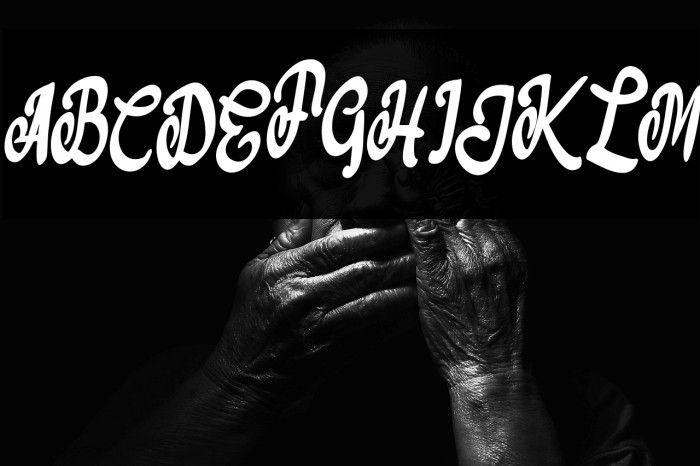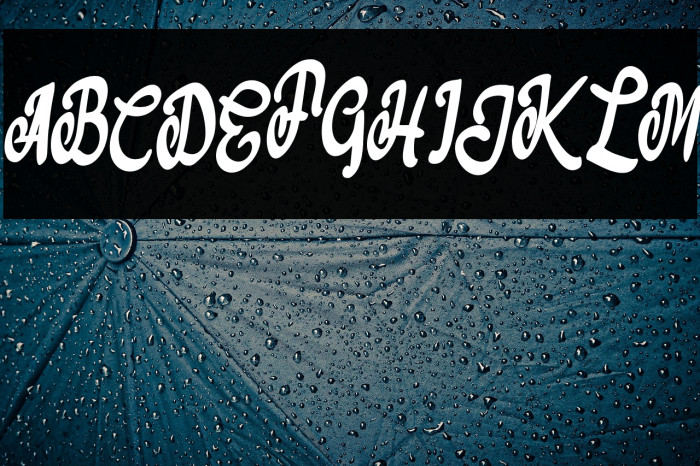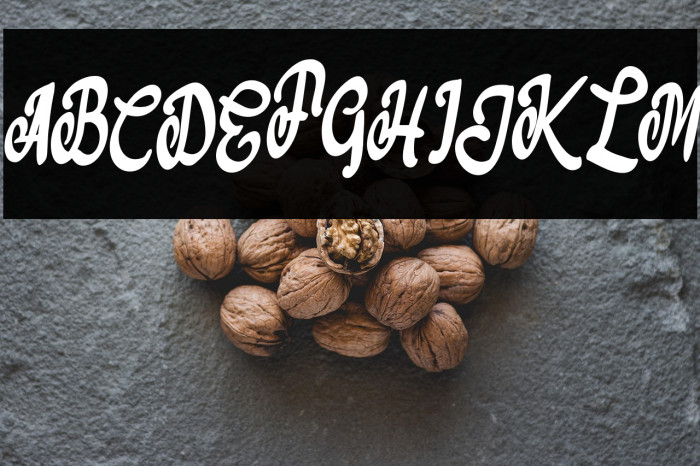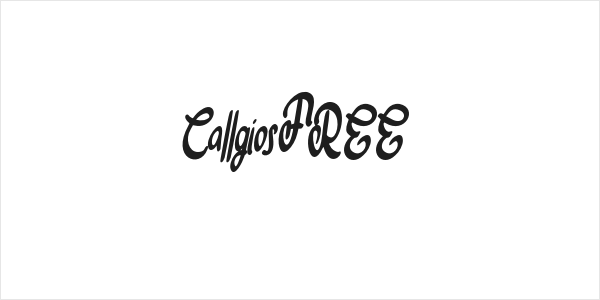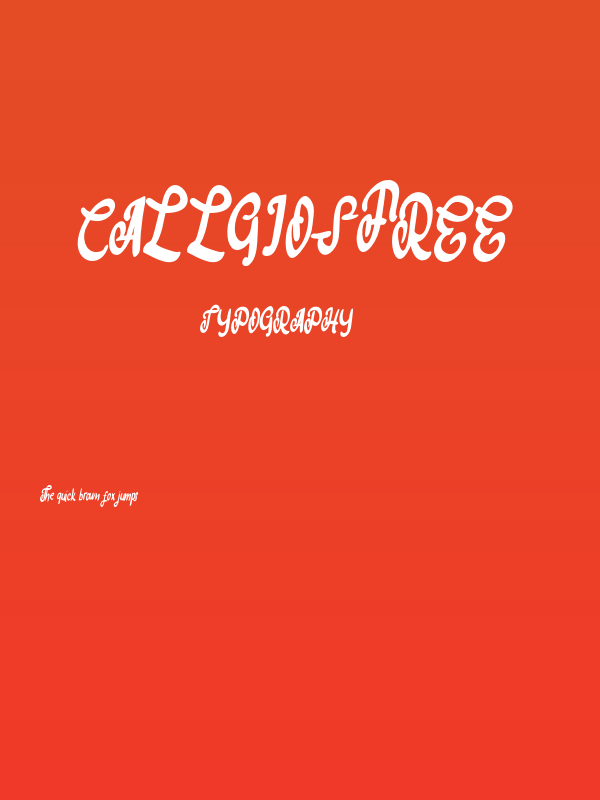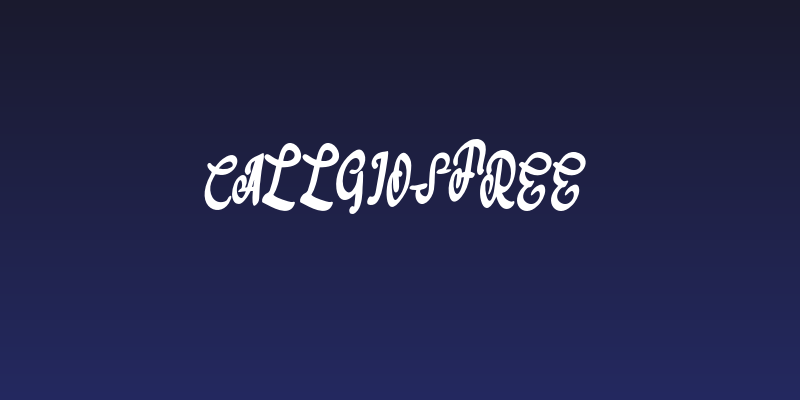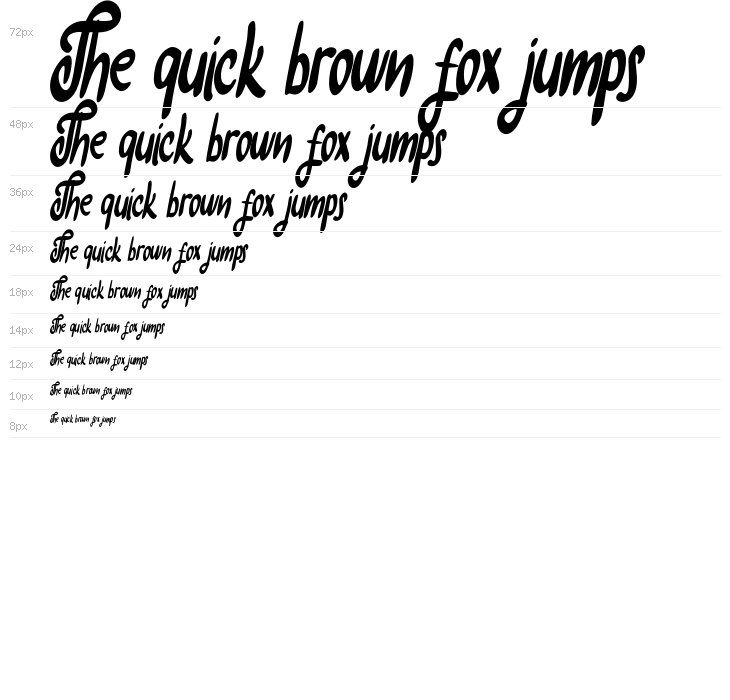
CallgiosFREE Font
CallgiosFREE Description
This font features a bold, flowing script style with a strong emphasis on curves and loops, giving it a dynamic and lively appearance. The uppercase letters are particularly ornate, with exaggerated flourishes that add a sense of elegance and sophistication. The lowercase letters maintain the same fluidity, creating a cohesive look across all characters. The numbers and special characters are designed to match the overall aesthetic, ensuring consistency throughout. This font is ideal for projects that require a touch of flair and personality, such as invitations, branding, or decorative headlines.
| Proposed Projects | Ideal for invitations, branding, decorative headlines, and any project needing a lively, elegant touch. |